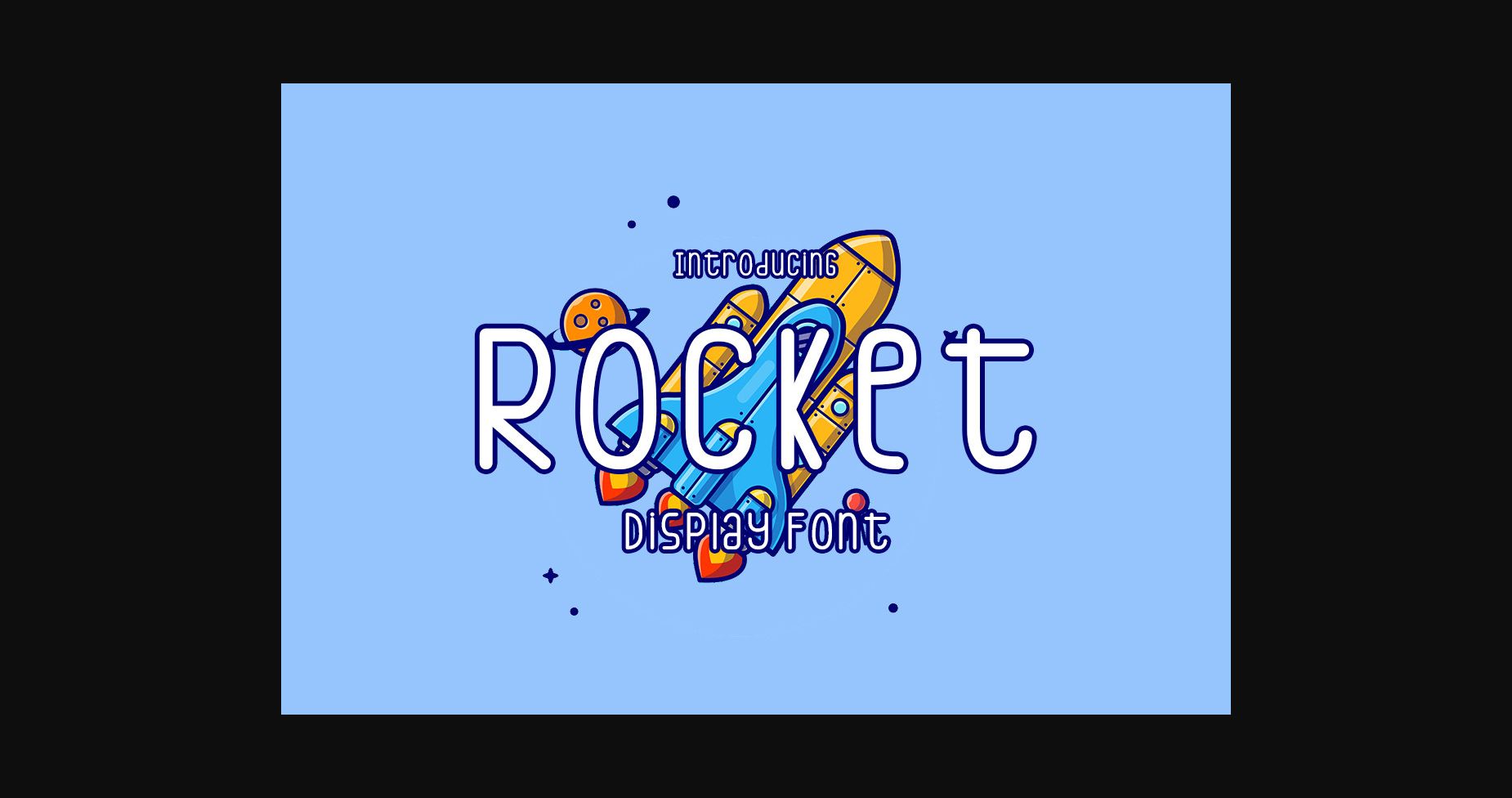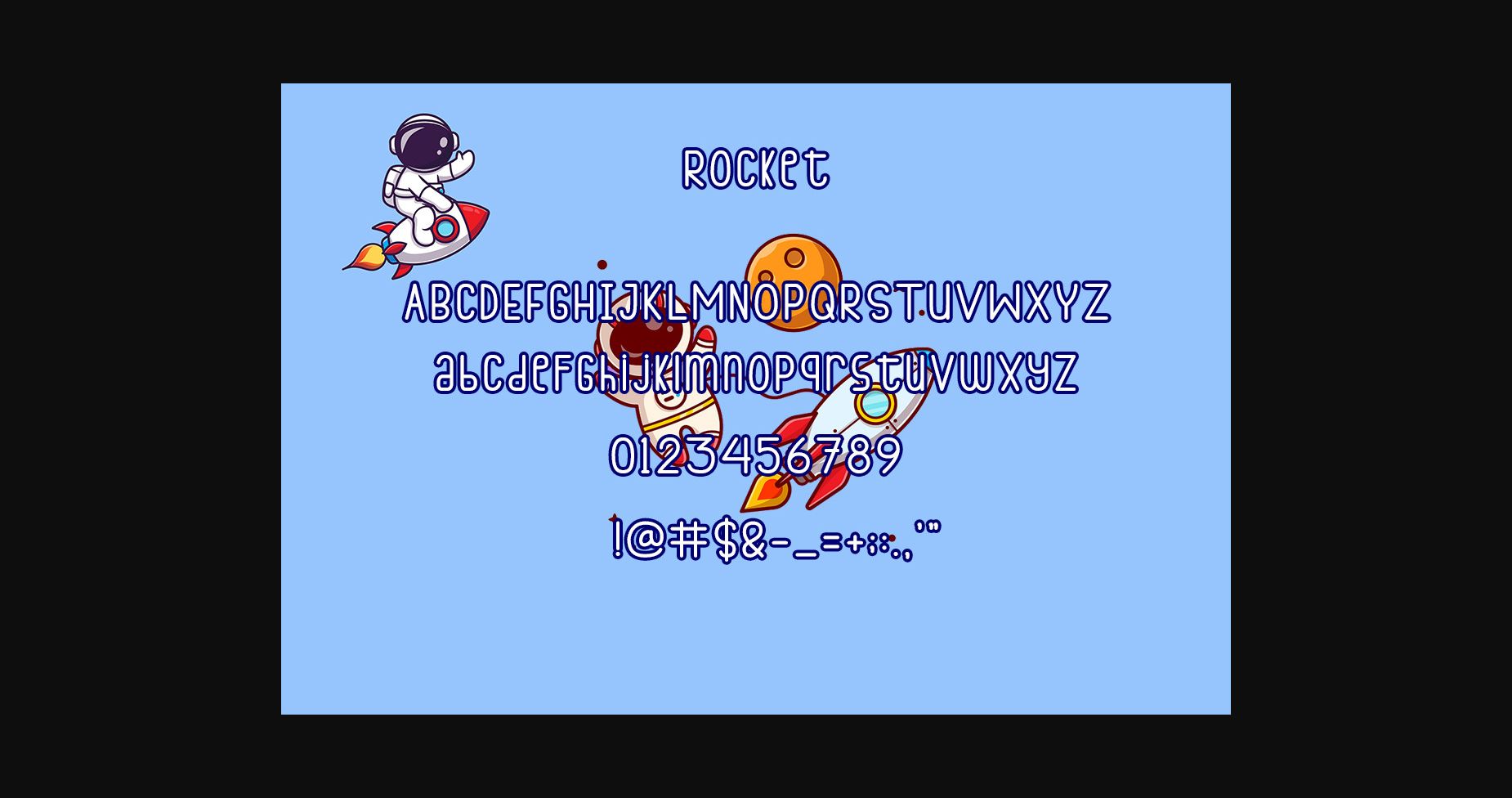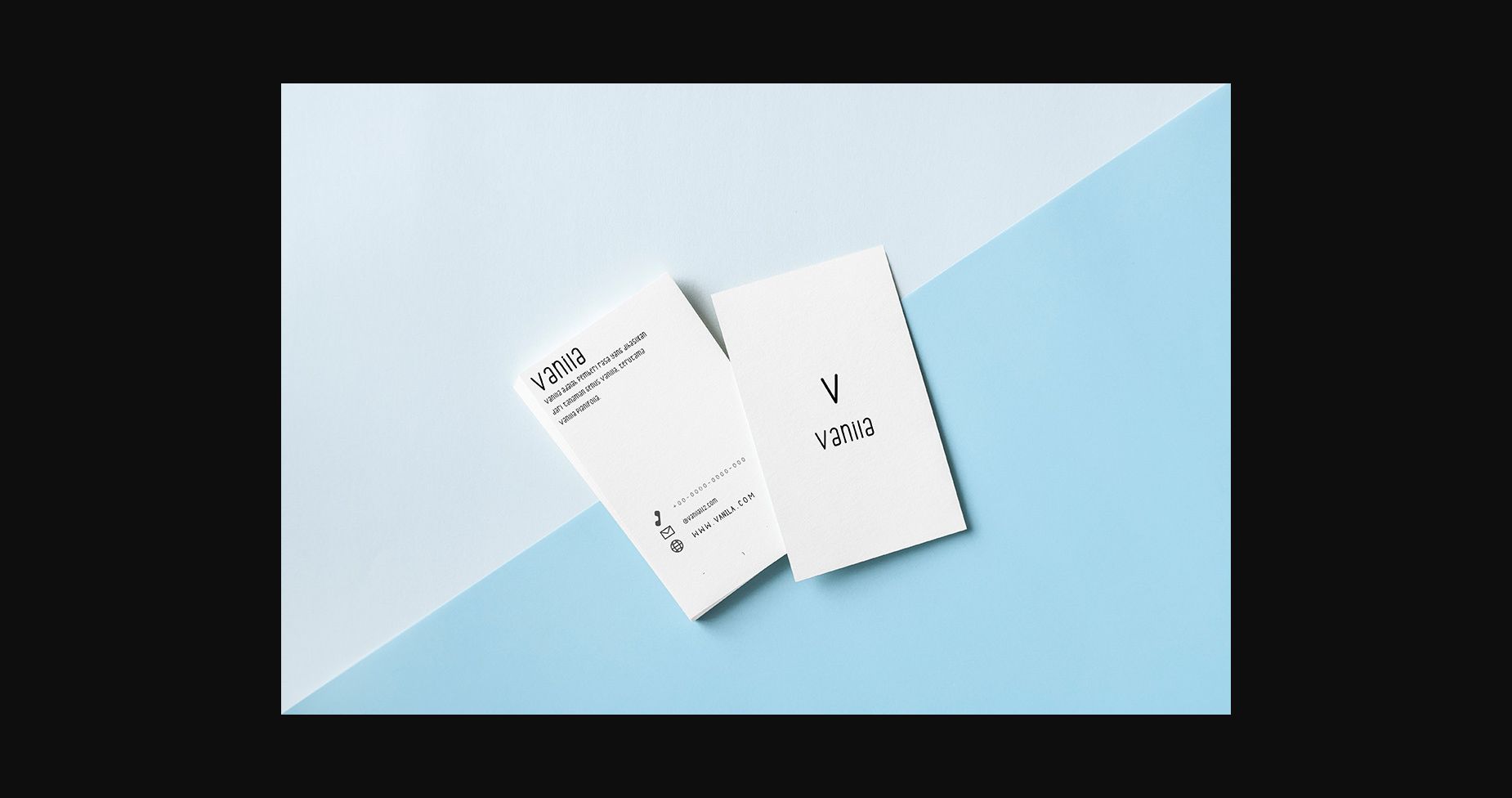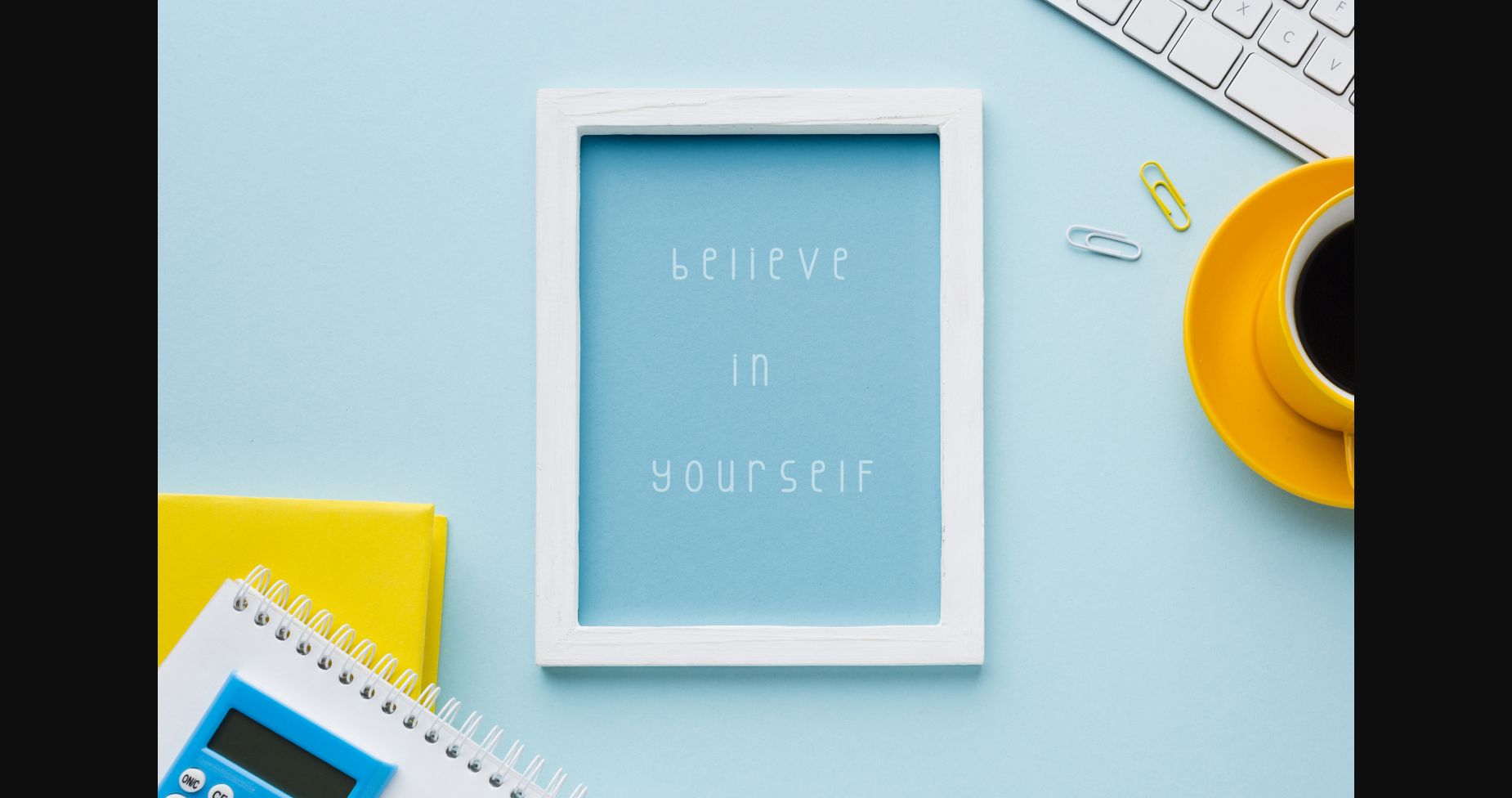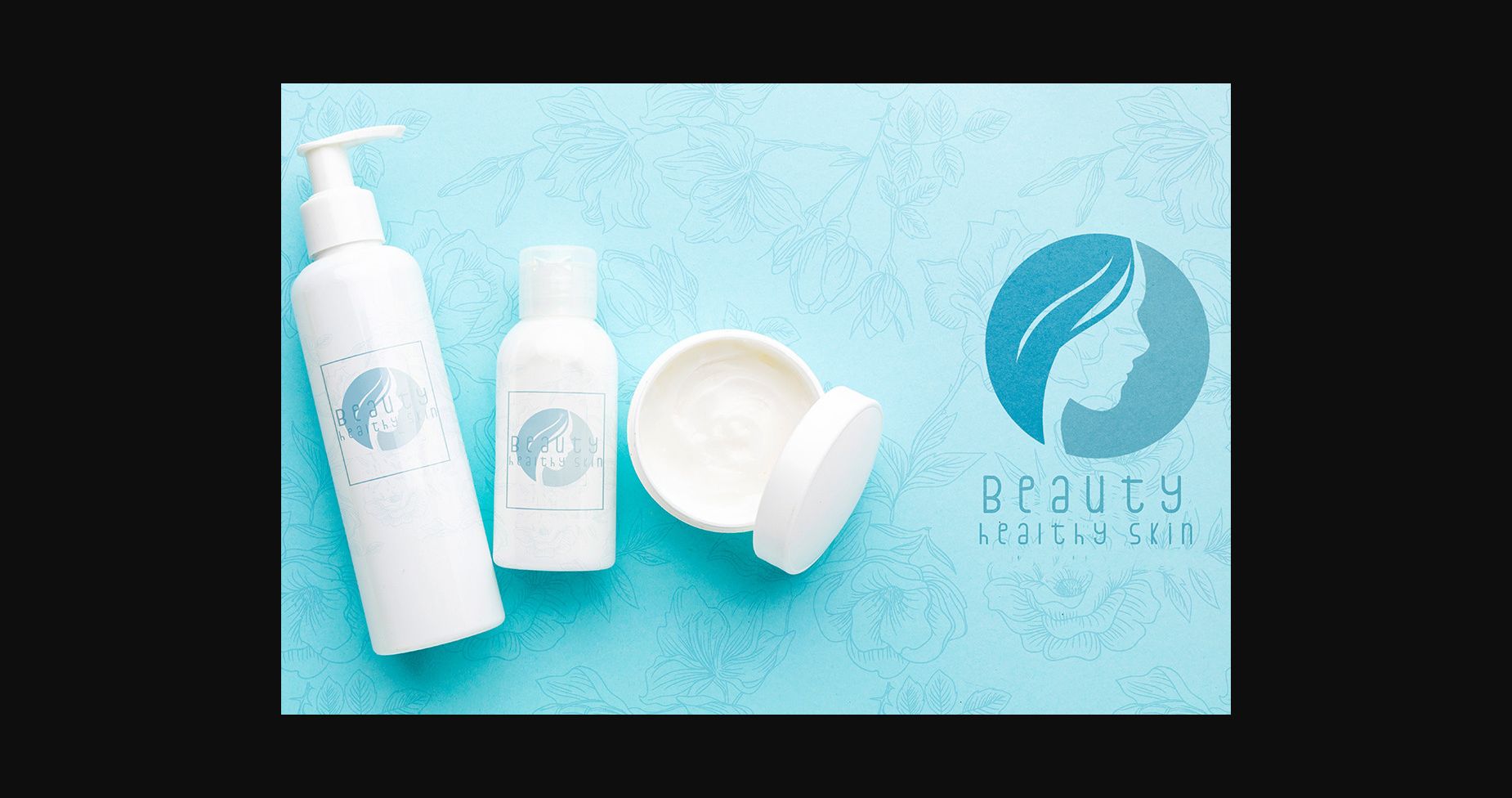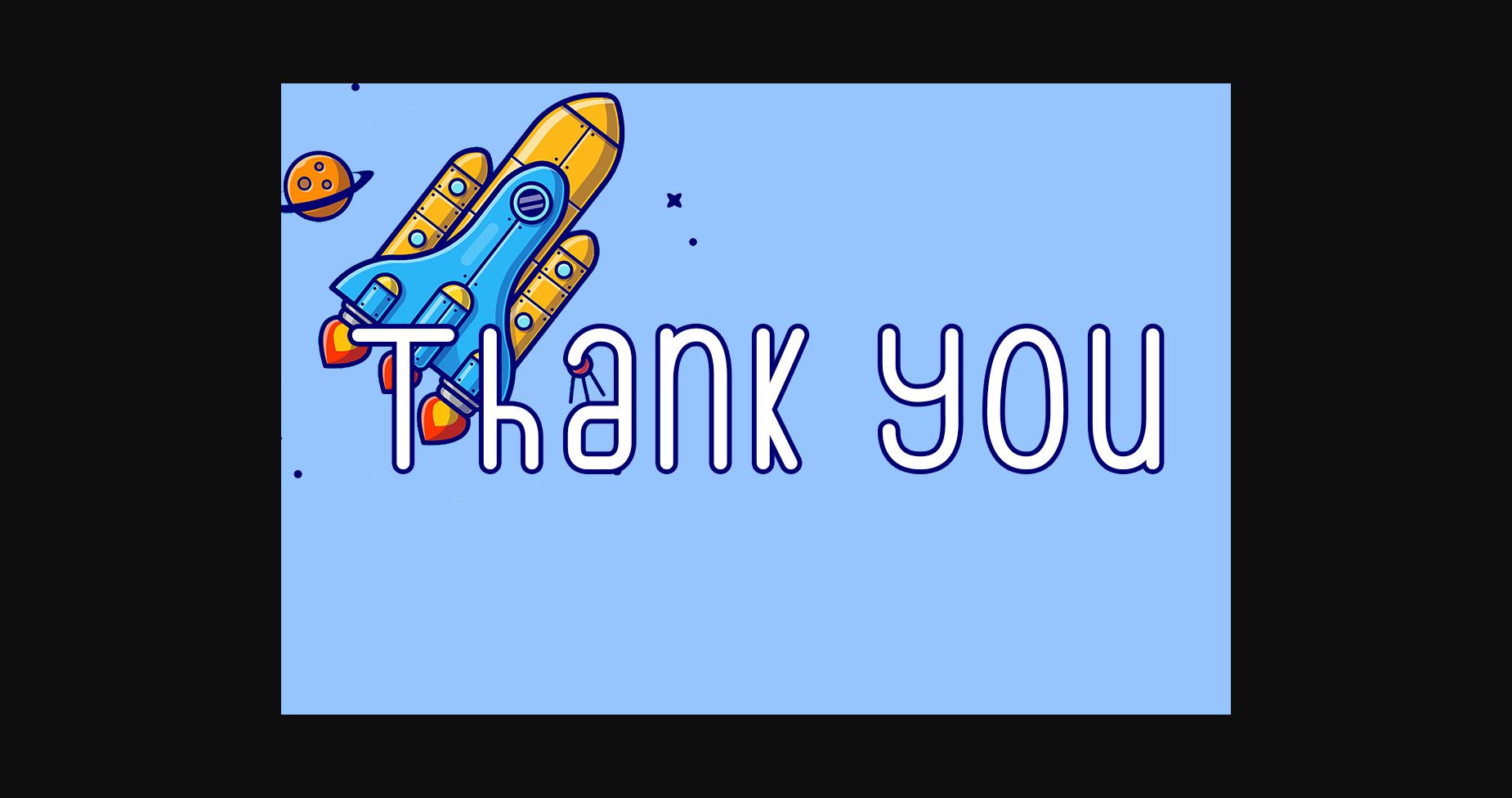
HomeSans Serif FontsRocket Font Sans Serif Fonts Rocket Font FacebookXPinterestWhatsApp 1 of 8 ... Rocket Font Poster 2... Rocket Font Poster 3... Rocket Font Poster 4... Rocket Font Poster 5... Rocket Font Poster 6... Rocket Font Poster 7... Rocket Font Poster 8... About Rocket Font Rocket is a cool, bold, and whimsical sans serif font. With its friendly characters, this typeface will add a modern and stylish touch to any of your lovely creations! DOWNLOAD NOW People also explored Munjaa Font Mangoli Font Fristy Font Morning Smile Font Brimington Font Water Lily Font Redwood Regular Font Paper Flowers Font Pauletta Font 449 0 TagsRocketRocket Font Previous articleYounks FontNext articleRedney Font LEAVE A REPLY Cancel reply Comment: Please enter your comment! Name:* Please enter your name here Email:* You have entered an incorrect email address! Please enter your email address here Website: Save my name, email, and website in this browser for the next time I comment. Personal Use Free Hunting Font Personal Use Free Read more about this font Kidly Personal Use Free Read more about this font DangeRNighT Font Personal Use Free Read more about this font Sebastopol Personal Use Free Read more about this font BLOG How to Cut Any Font on Cricut: Convert a Font to SVG (Free) Turn any font into a clean SVG so it cuts crisp on Cricut - a quick 3-step workflow using a free font-to-SVG tool. Free vs Paid Fonts: Why Investing in Premium Fonts Is Worth It Transform Your Website: Elevate Your Typography with 7 Best Web Font Generators To increase your work productivity, choose the most readable fonts.